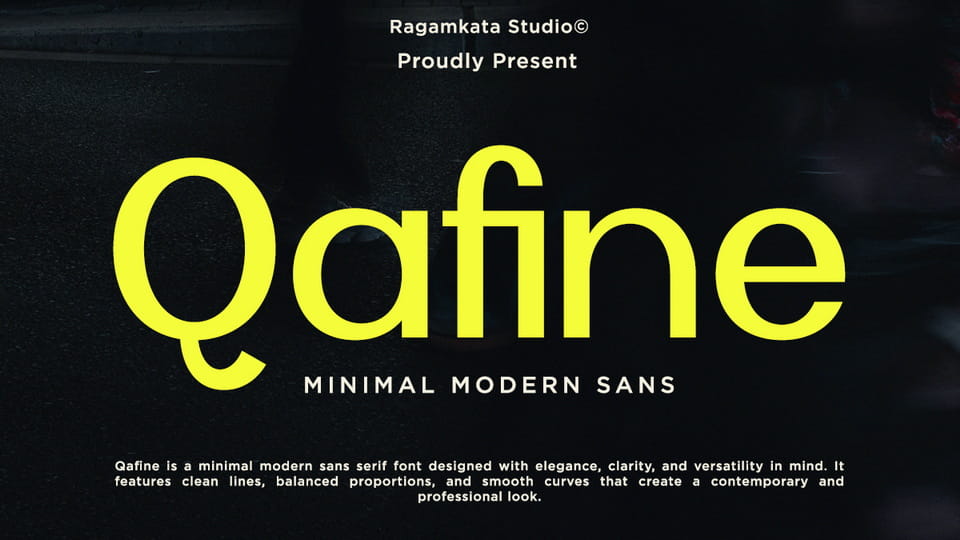
Download Qafine font, a minimal modern sans serif typeface designed with elegance, clarity, and versatility in mind. It features clean lines, balanced proportions, and smooth curves that create a contemporary and professional look.